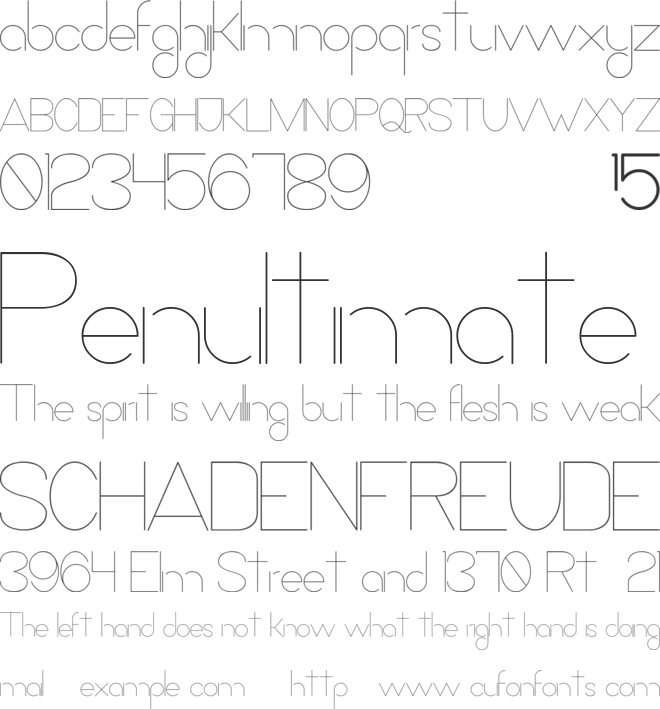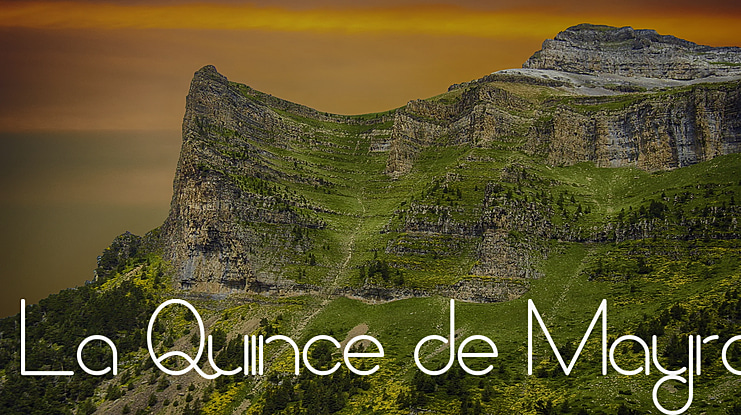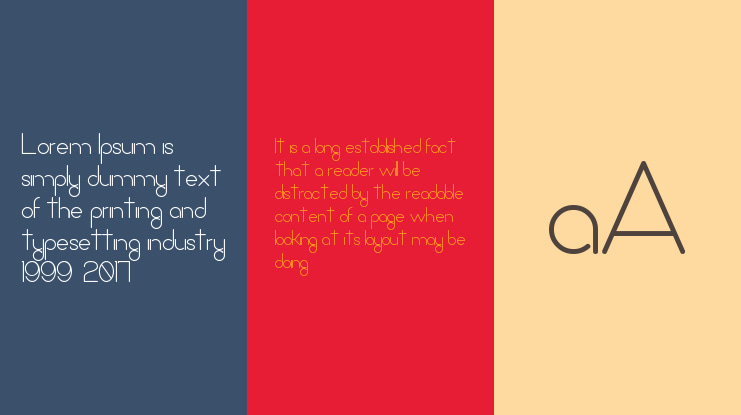
La Quince de Mayra Font Family
Another light font for your pleasure. A quince is a special celebration for a girls 15th birthday in Latin American countries. I created this font for a web design project, and it could be used nicely for Ad Copy. This font come in 2 weights.